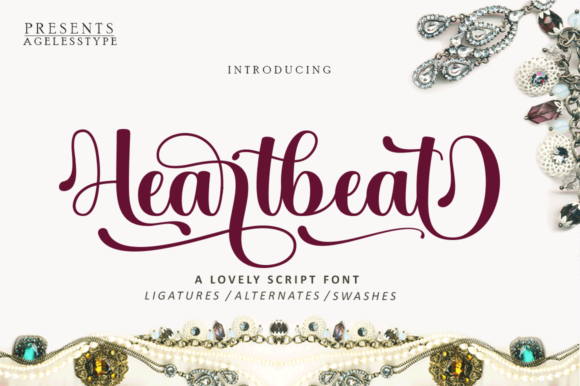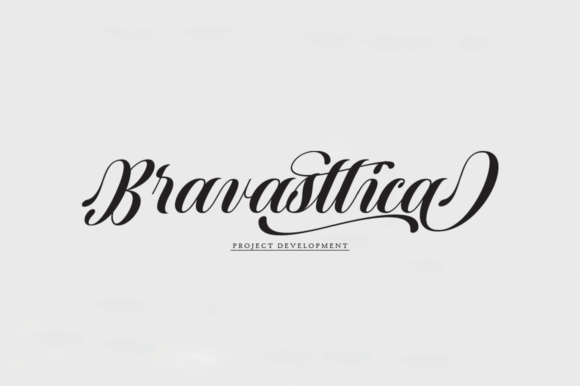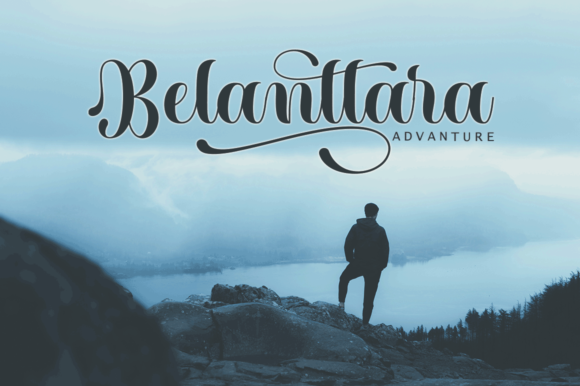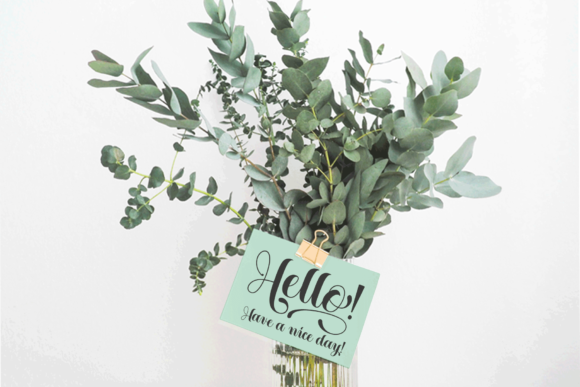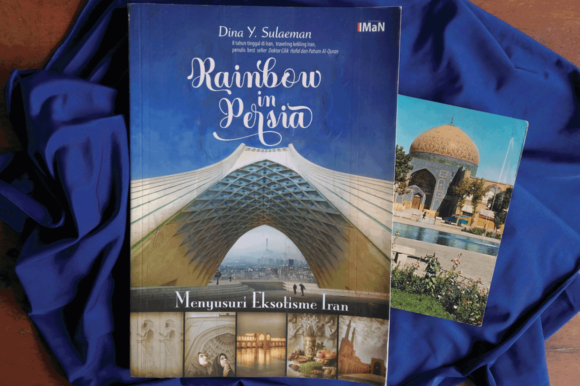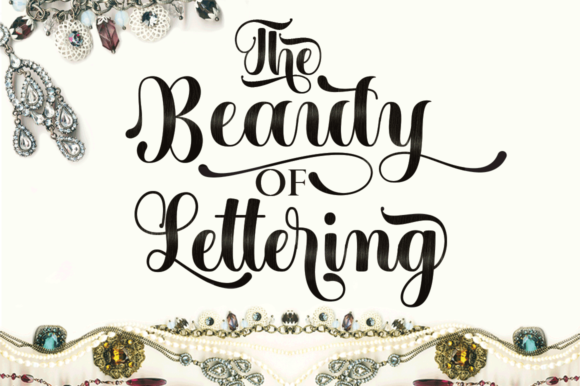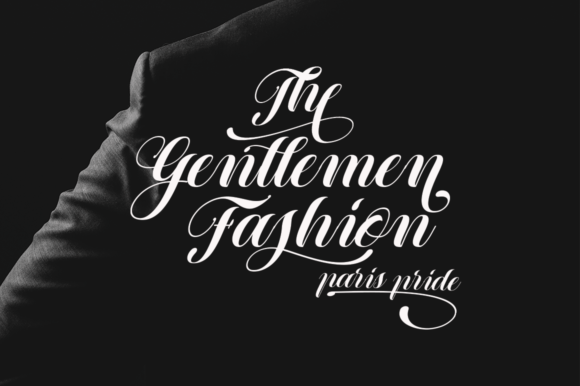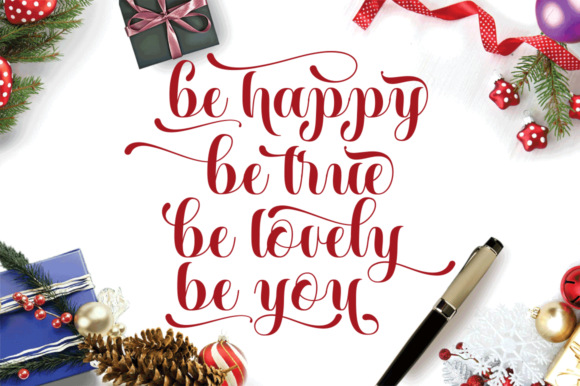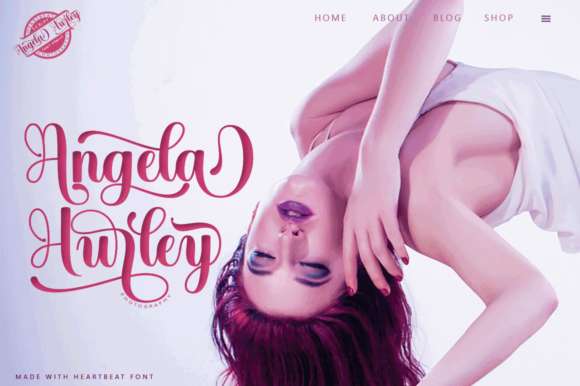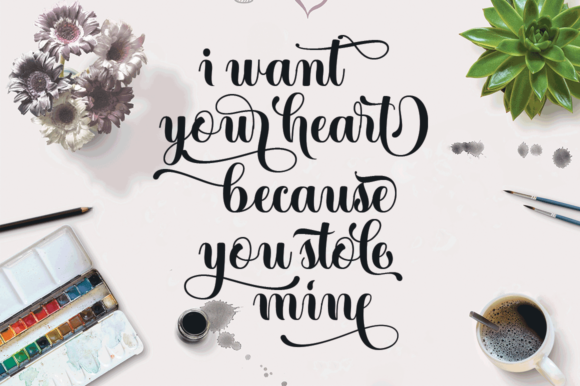
Heartbeat Family Font
About Heartbeat Family Font
Heartbeat is a gorgeous font family that celebrates all things love. It contains fabulous washes and magical calligraphic letters that will add a playful and romantic twist to any DIY projects.